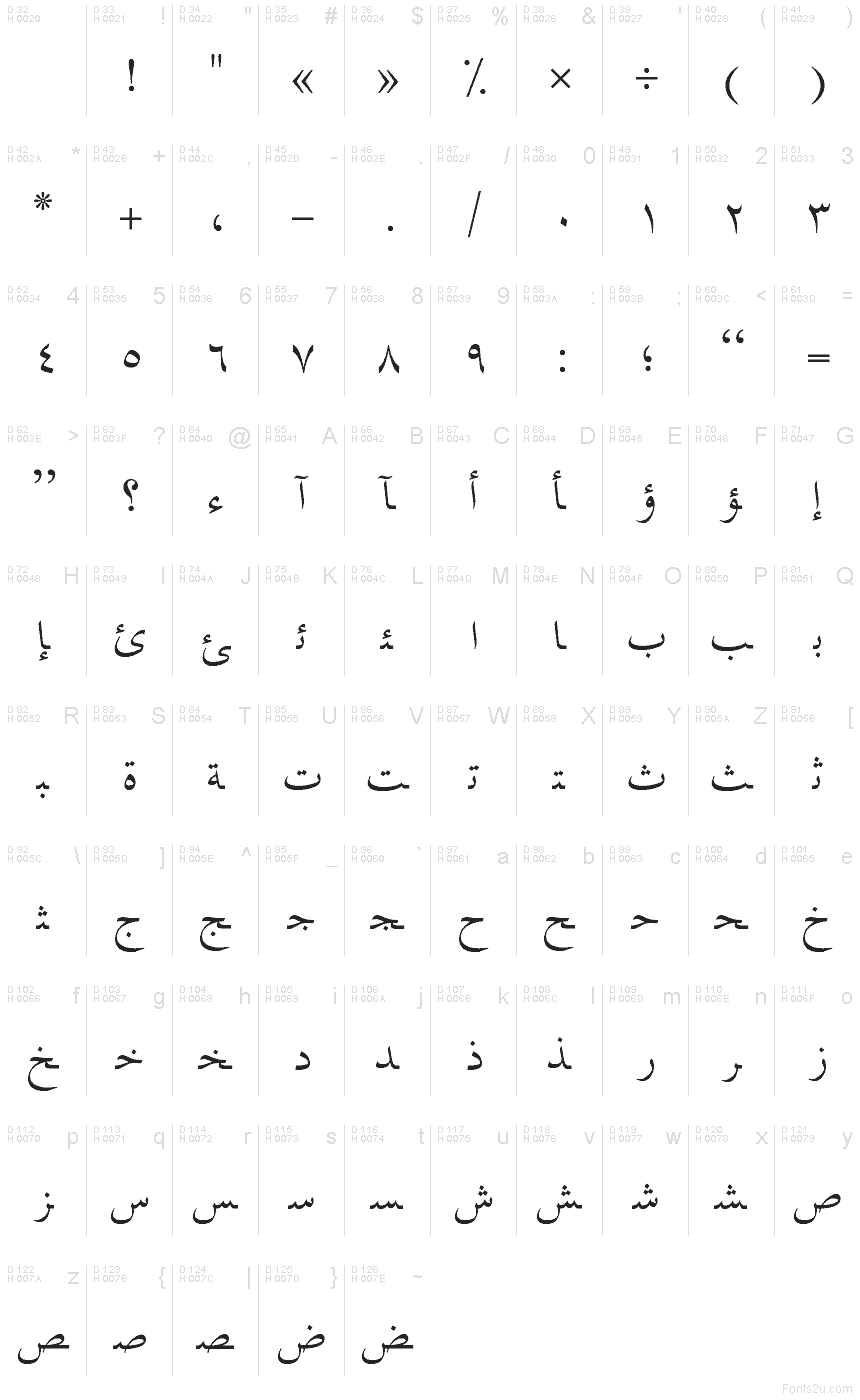
WPS ArabicNaskhSSK 1 Regular
WPS ArabicNaskhSSK 1 font is an artistic typeface inspired by the beauty of traditional Arabic calligraphy. With its flowing lines and elegant design, this font carries a classic aesthetic that merges artistry with readability. Each letter exhibits a distinctive character, creating a harmonious visual experience across all writing.